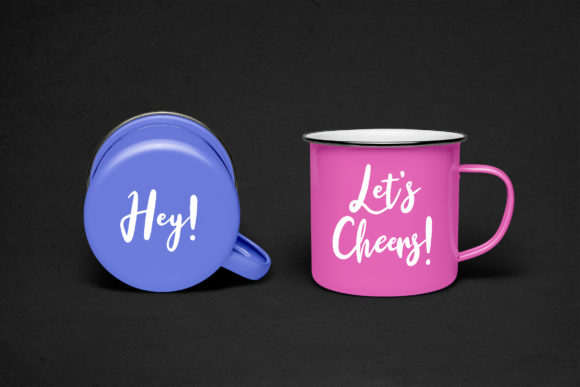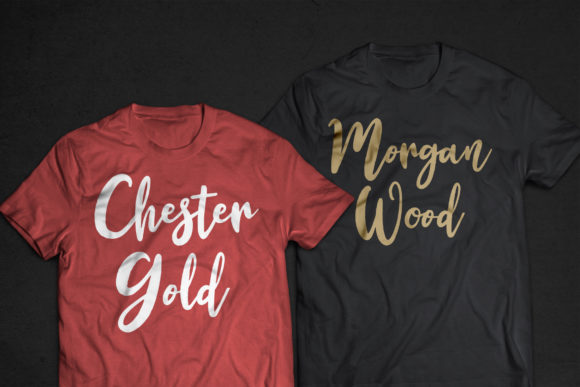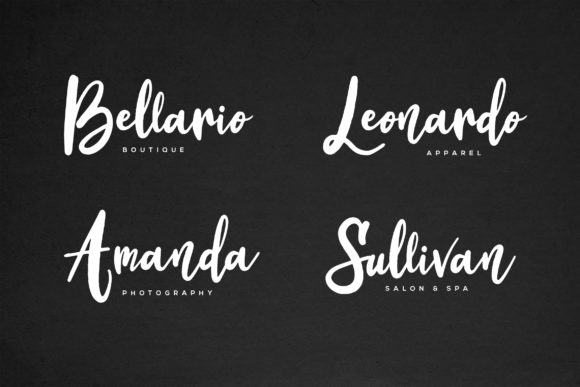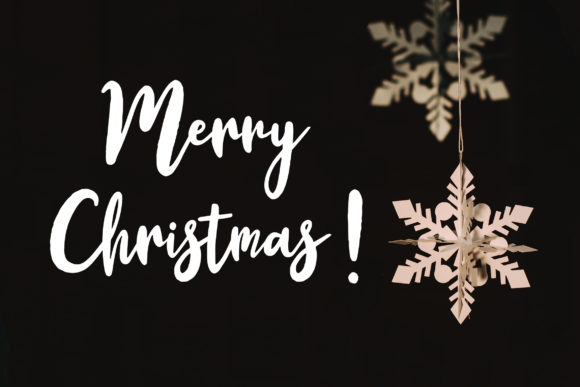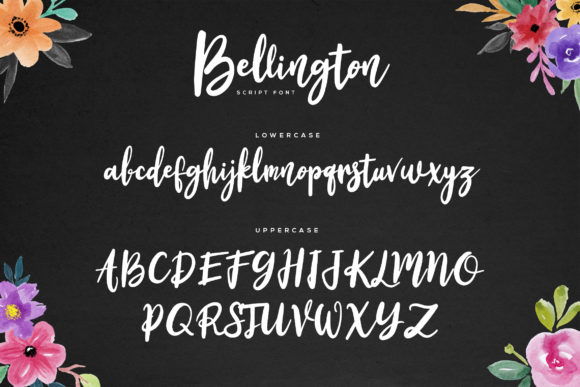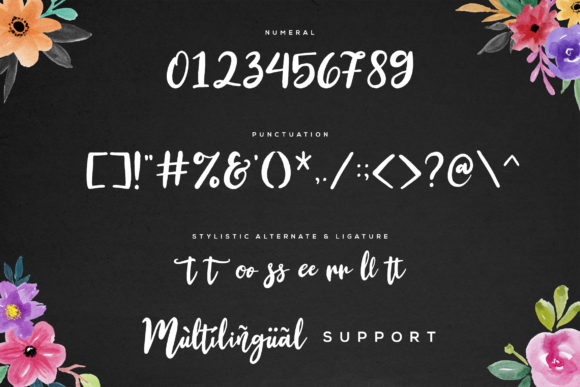
Bellington Font: A Playful and Romantic Script Font
Bellington is a beautiful and charming script font that exudes a sense of playful romance. With its delicate elegance and light feel, it’s the perfect choice for designers and crafters looking to add a touch of whimsy to their projects. In this article, we’ll take a closer look at the Bellington font, its features, and how you can use it to elevate your designs.
What is Bellington Font?
Bellington is a script font designed to capture the essence of handwriting. Its flowing lines and curves give it a natural, effortless feel that’s perfect for creating romantic and feminine designs. The font features a range of characters, including uppercase and lowercase letters, numbers, and punctuation marks, making it versatile and easy to use.
Key Features of Bellington Font
- Playful and Romantic: Bellington font has a playful and romantic feel that’s perfect for designs that require a touch of whimsy.
- Delicate Elegance: The font features delicate lines and curves that give it an elegant and refined feel.
- Light Feel: Bellington font has a light feel that’s perfect for creating designs that require a sense of airiness and freedom.
- Versatile: The font features a range of characters, including uppercase and lowercase letters, numbers, and punctuation marks, making it easy to use for a variety of designs.
How to Use Bellington Font
Bellington font is perfect for a range of design projects, including:
- Wedding Invitations: The font’s romantic and elegant feel makes it perfect for wedding invitations, save-the-date cards, and other wedding-related designs.
- Branding: Bellington font can be used to create beautiful and feminine brand identities, including logos, business cards, and packaging.
- Signage: The font’s playful and whimsical feel makes it perfect for signage, including store signs, menus, and directional signs.
- Digital Designs: Bellington font can be used to create stunning digital designs, including social media graphics, blog headers, and email newsletters.
Tips for Using Bellington Font
- Pair with Bold Fonts: Pair Bellington font with bold fonts to create a striking contrast and add visual interest to your designs.
- Use for Headlines: Use Bellington font for headlines and titles to add a touch of elegance and sophistication.
- Experiment with Colors: Experiment with different colors to find the perfect combination that complements the font’s delicate feel.
- Use for Quotes: Use Bellington font to create beautiful quotes and typography-focused designs.
Why Choose Bellington Font?
Bellington font is a unique and beautiful script font that offers a range of benefits, including:
- Unique Style: The font’s playful and romantic feel sets it apart from other script fonts.
- Elegant and Refined: Bellington font has an elegant and refined feel that’s perfect for designs that require a touch of sophistication.
- Easy to Use: The font features a range of characters and is easy to use, making it perfect for designers and crafters of all levels.
Bellington font is a beautiful and charming script font that’s perfect for designers and crafters looking to add a touch of whimsy to their projects. With its delicate elegance and light feel, it’s the perfect choice for creating romantic and feminine designs. Whether you’re designing wedding invitations, branding materials, or digital designs, Bellington font is sure to impress.